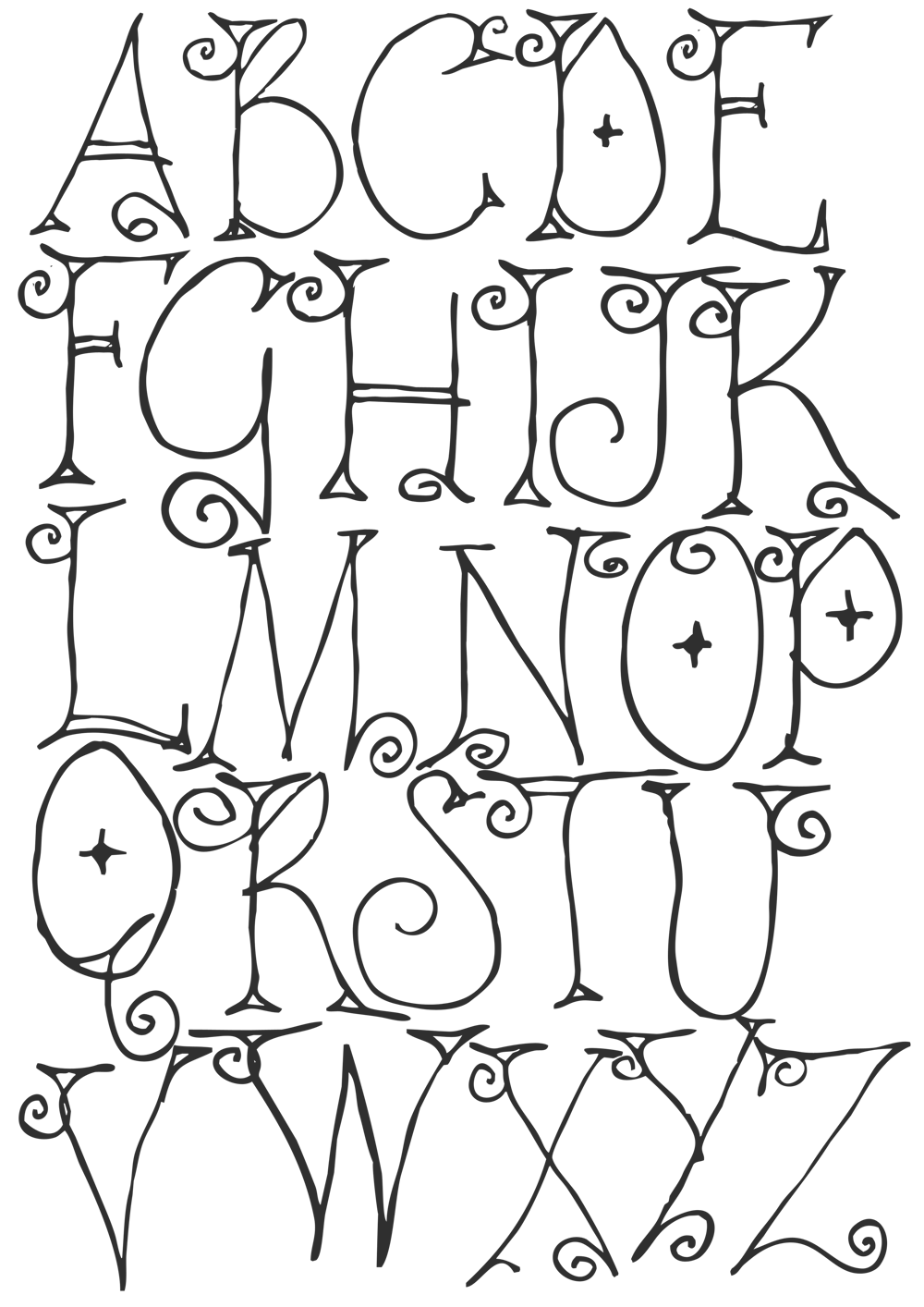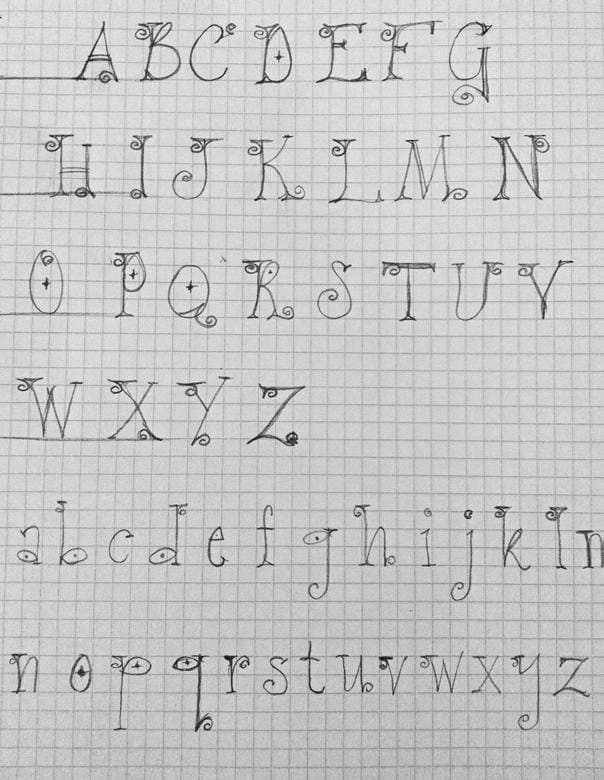
hand drawn whimsical font
hand drawn whimsical font - image 1 - student project
...it's a bit rough , but I had a lot of fun sketching this up...I wanted to create something a little different , kind of whimsical/nonsensical ( is that a word?? lol )
hand drawn whimsical font - image 2 - student project